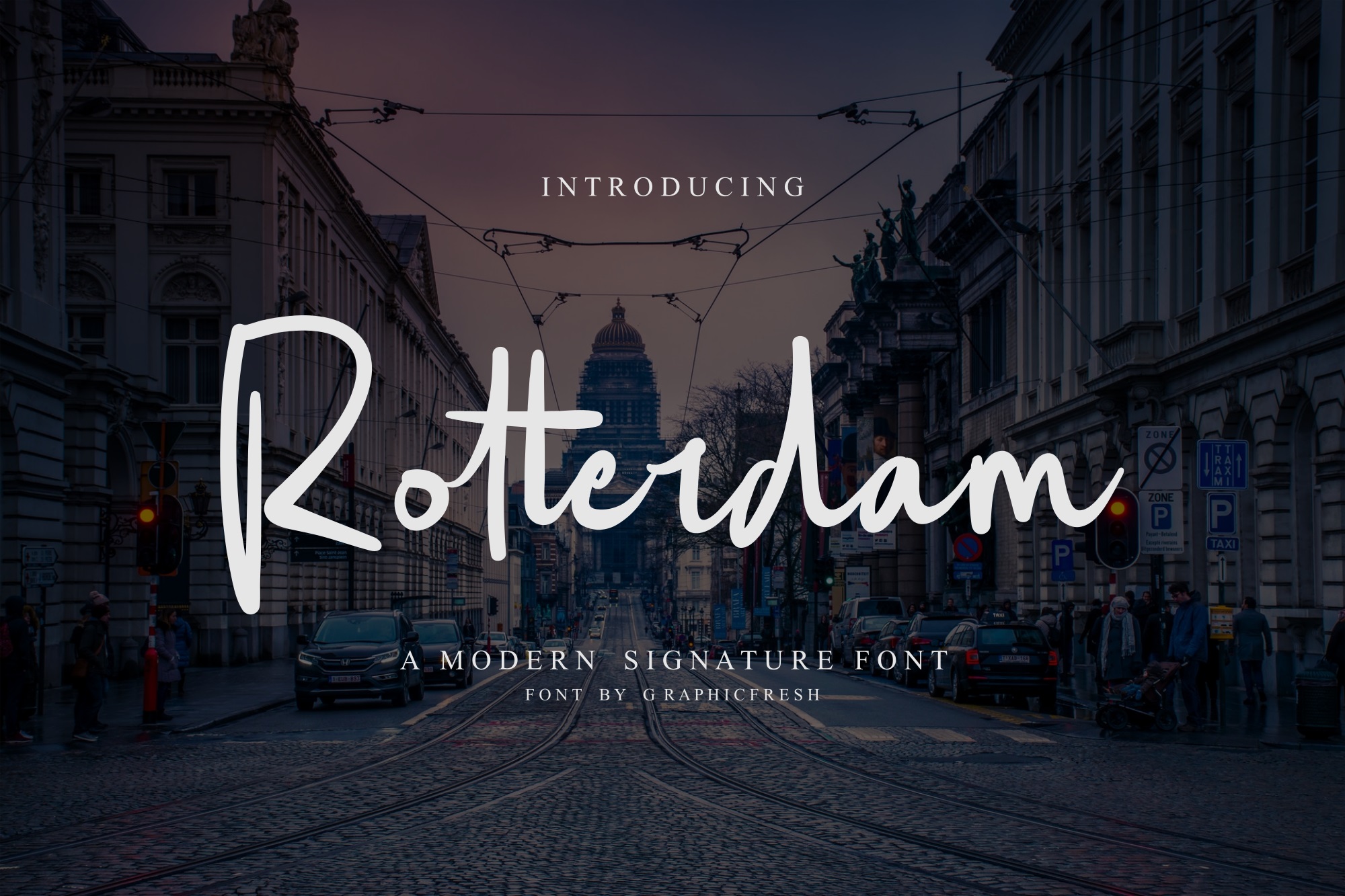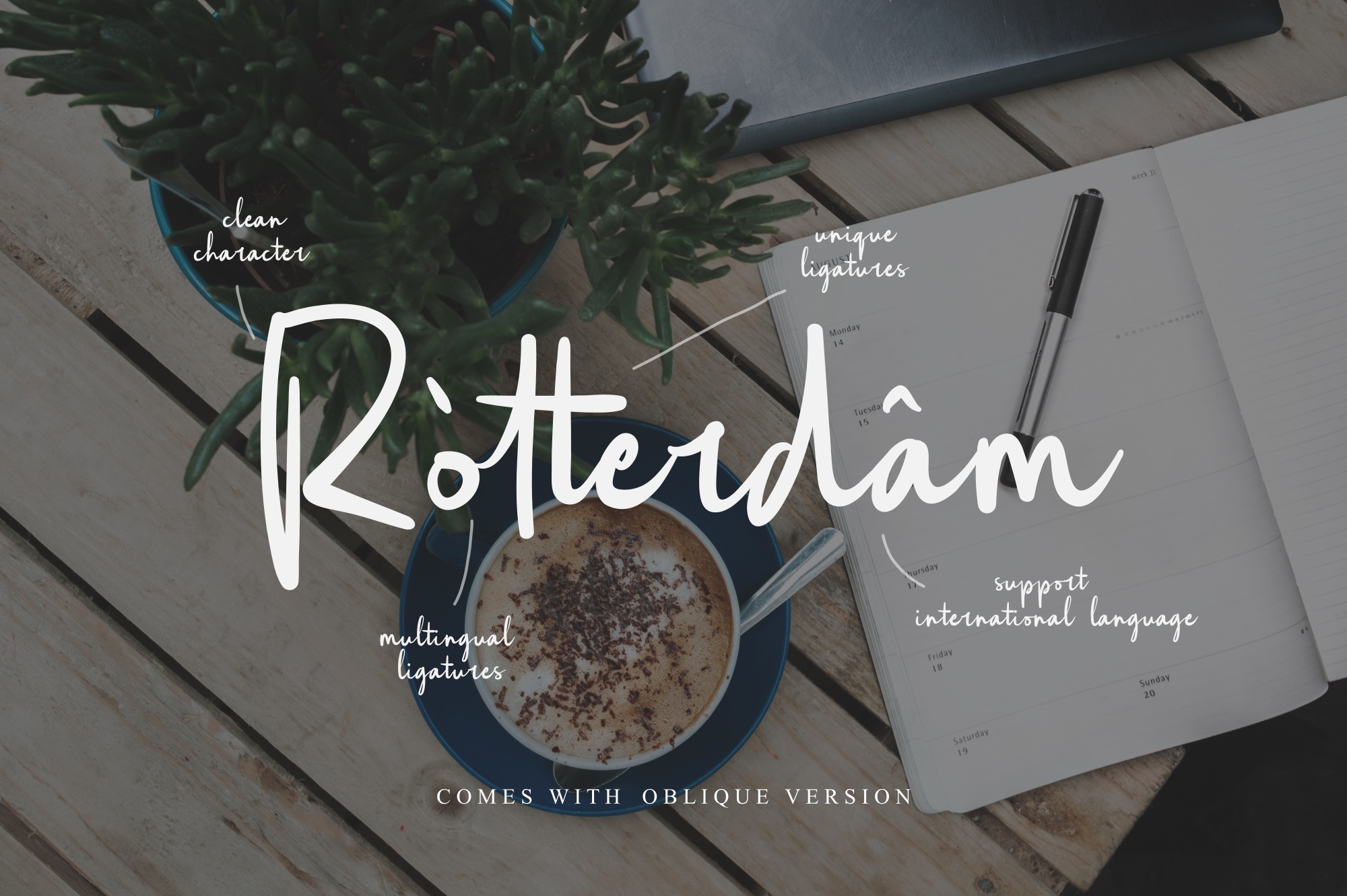
Rotterdam Font
About Rotterdam Font
Rotterdam is a gorgeous and casual script font, perfectly suited for signatures and logotype projects. This script reads well, and follows the natural flow of handwriting for a special and unique style.